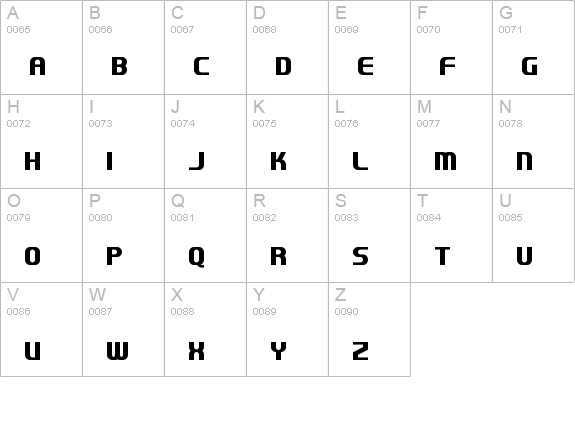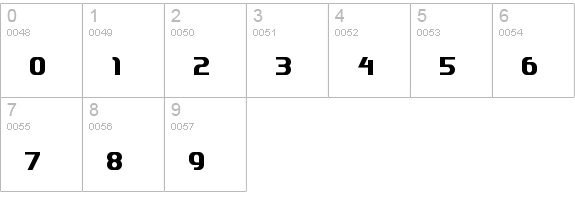
Quantifier NBP Font Details
Introducing Quantifier NBP font, a modern and stylish typeface that will elevate your design projects to new heights. With its clean lines and sleek curves, this font exudes professionalism and sophistication. Quantifier NBP font is perfect for a wide range of design applications, from branding and logos to website headers and social media graphics. Its versatility knows no bounds, making it an essential tool for designers of all levels. But what sets Quantifier NBP font apart from the rest is its unique feature - it is freely available to download at FontsMarket.com. Yes, you read that right. This remarkable font is not only visually stunning, but it also won't cost you a dime. Imagine the possibilities of having access to a high-quality font that is not only visually appealing but also easily accessible. Whether you are a professional designer looking to enhance your portfolio or a hobbyist looking to add a touch of elegance to your personal projects, Quantifier NBP font is the perfect choice. With its wide range of characters and glyphs, Quantifier NBP font allows you to create captivating designs that will captivate your audience. Its seamless integration with various design software ensures a smooth and hassle-free experience, allowing you to unleash your creativity without any limitations. So why wait? Download Quantifier NBP font today at FontsMarket.com and experience the power of a truly exceptional font. Elevate your design projects, stand out from the crowd, and make a lasting impression with this remarkable typeface. Don't miss out on this incredible opportunity to get a high-quality font for free. Get Quantifier NBP font and take your designs to the next level.